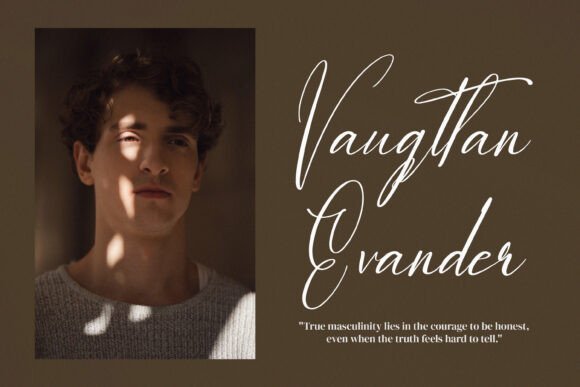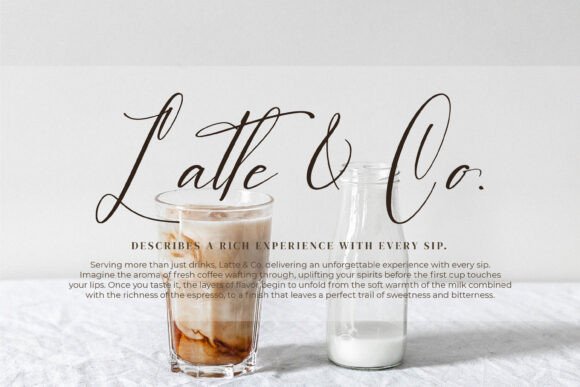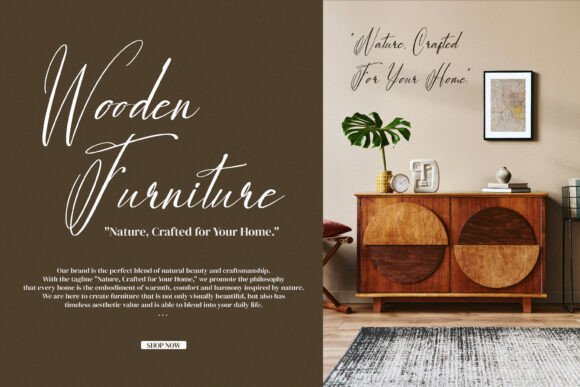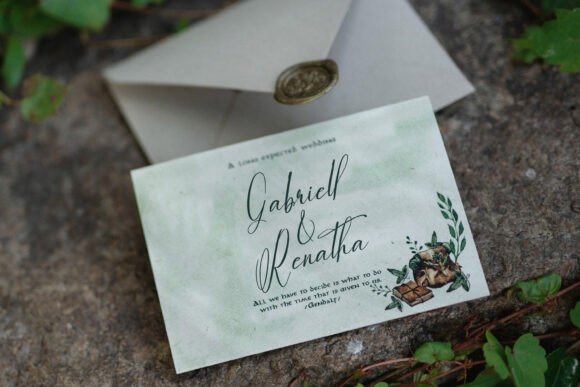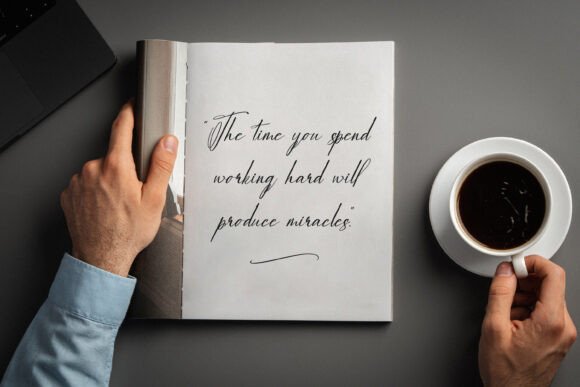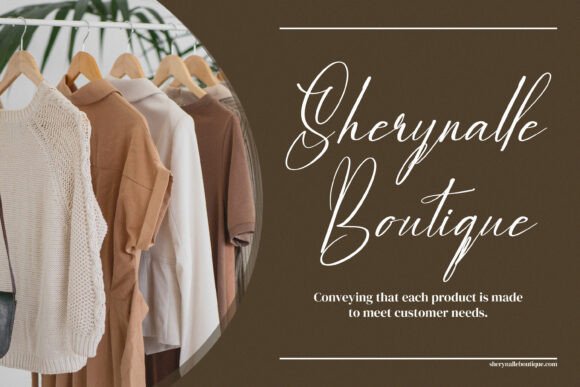
Frostheart Font: Elevate Your Designs with Elegant Modern Calligraphy
In the world of typography, few fonts capture the essence of elegance and sophistication as beautifully as Frostheart. This stunning modern calligraphy font is designed to add a touch of luxury to any project, making it perfect for designers and crafters looking to create something truly special. With its flowing letters and delicate design, Frostheart is sure to become a favorite in your font collection.
The Beauty of Frostheart
Frostheart is a beautiful modern calligraphy font that boasts elegant, flowing letters that seem to dance across the page. Its stylish and delicate design makes it an ideal choice for projects that require a touch of sophistication, such as:
- Invitations: Whether you’re planning a wedding, baby shower, or milestone birthday, Frostheart is the perfect font to set the tone for your special event.
- Greeting cards: Add a touch of elegance to your greeting cards with Frostheart’s beautiful, flowing script.
- Stationery: Elevate your stationery designs with Frostheart’s sophisticated and stylish letters.
- Branding: Use Frostheart to add a touch of luxury to your brand’s typography and create a lasting impression.
What Makes Frostheart Special?
So, what sets Frostheart apart from other calligraphy fonts? Here are just a few features that make it truly special:
- Elegant lettering: Frostheart’s letters are carefully crafted to exude elegance and sophistication, making it perfect for projects that require a touch of luxury.
- Flowing connections: The font’s flowing connections between letters create a beautiful, fluid script that’s a joy to behold.
- Delicate design: Frostheart’s delicate design makes it perfect for projects that require a touch of subtlety and restraint.
- Modern feel: Despite its elegant design, Frostheart has a distinctly modern feel that makes it perfect for contemporary projects.
Tips for Using Frostheart
- Pair it with contrasting fonts: Combine Frostheart with bold, sans-serif fonts to create a striking contrast that adds visual interest to your design.
- Use it sparingly: While Frostheart is beautiful, it can be overwhelming if used excessively. Use it sparingly to add a touch of elegance to your design.
- Experiment with colors: Frostheart looks stunning in a variety of colors, from metallic gold and silver to soft pastels.
- Pay attention to spacing: Make sure to adjust the spacing between letters to create a beautiful, flowing script.